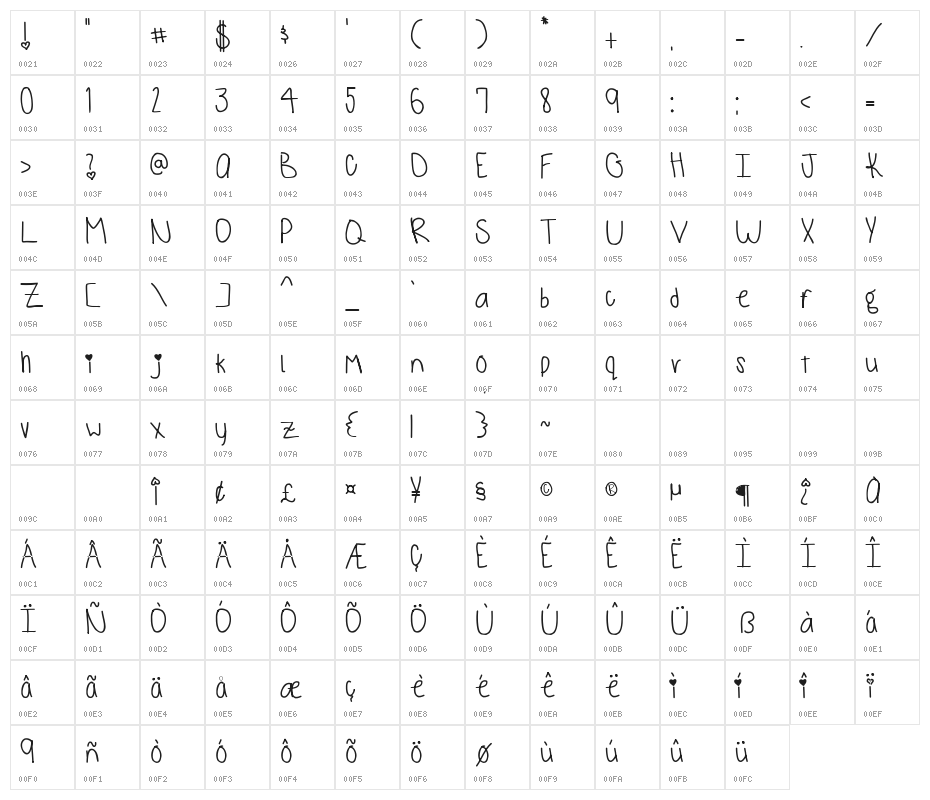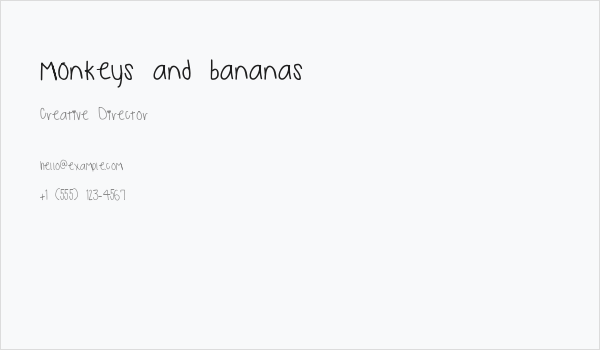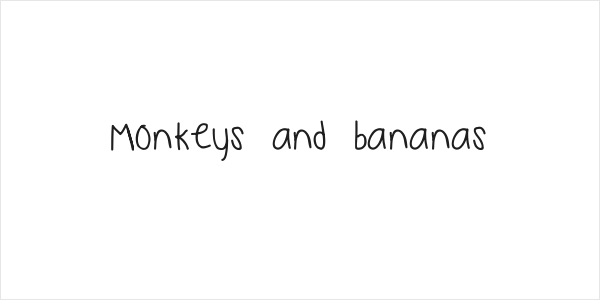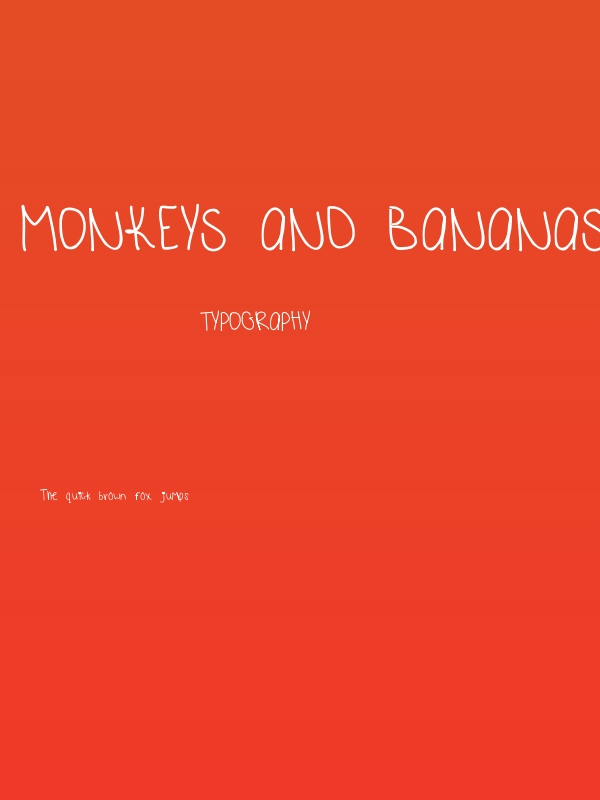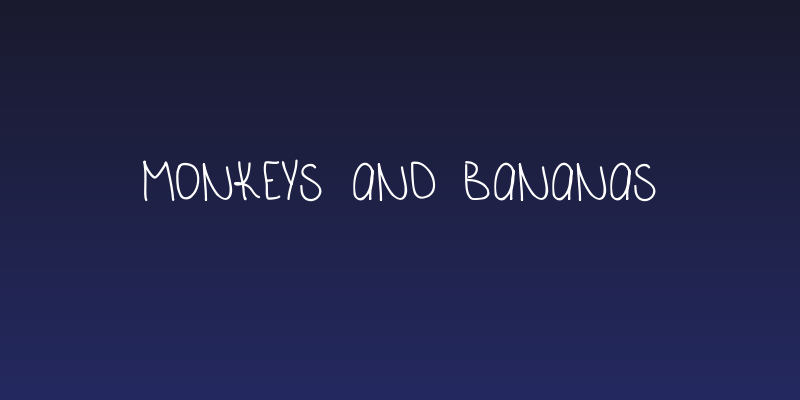
monkeys and bananas Font
monkeys and bananas Description
This playful and whimsical font features a handwritten style with a casual and friendly appearance. The letters are slightly irregular, adding a sense of charm and personality. The uppercase and lowercase letters are distinct, with some characters incorporating unique elements such as heart shapes in place of dots over the 'i' and 'j'. The numbers are consistent with the overall style, maintaining the same playful and informal look. Special characters are included, each designed to match the font's overall aesthetic. This font is perfect for projects that require a touch of fun and creativity.
| Proposed Projects | Ideal for children's books, greeting cards, playful branding, and creative social media graphics. |